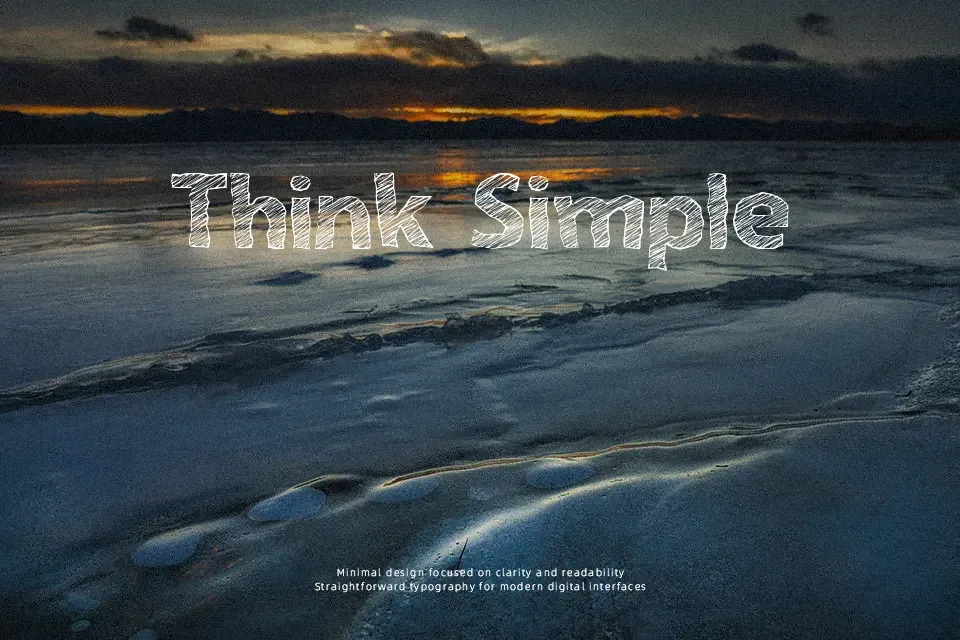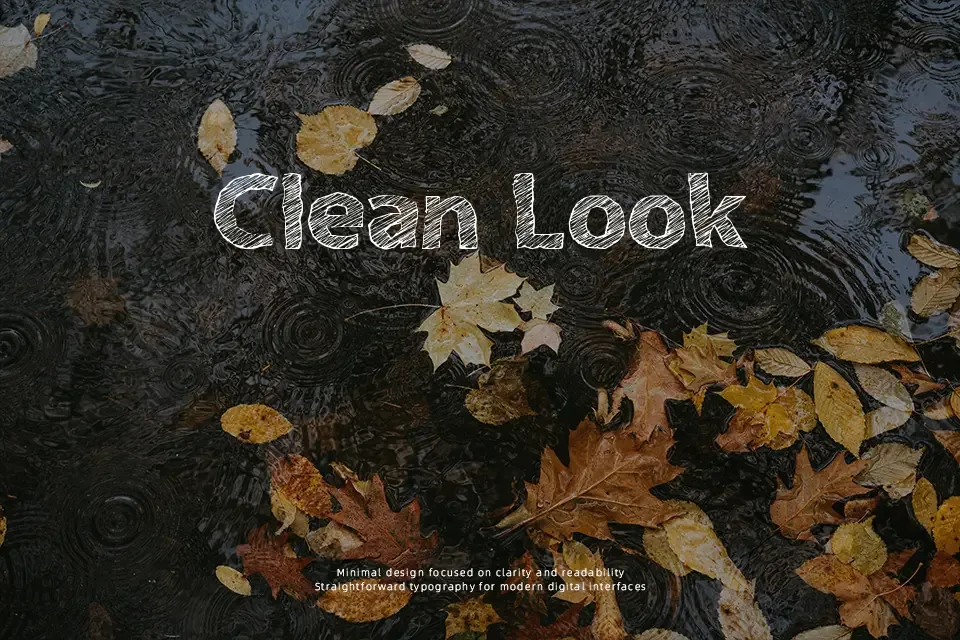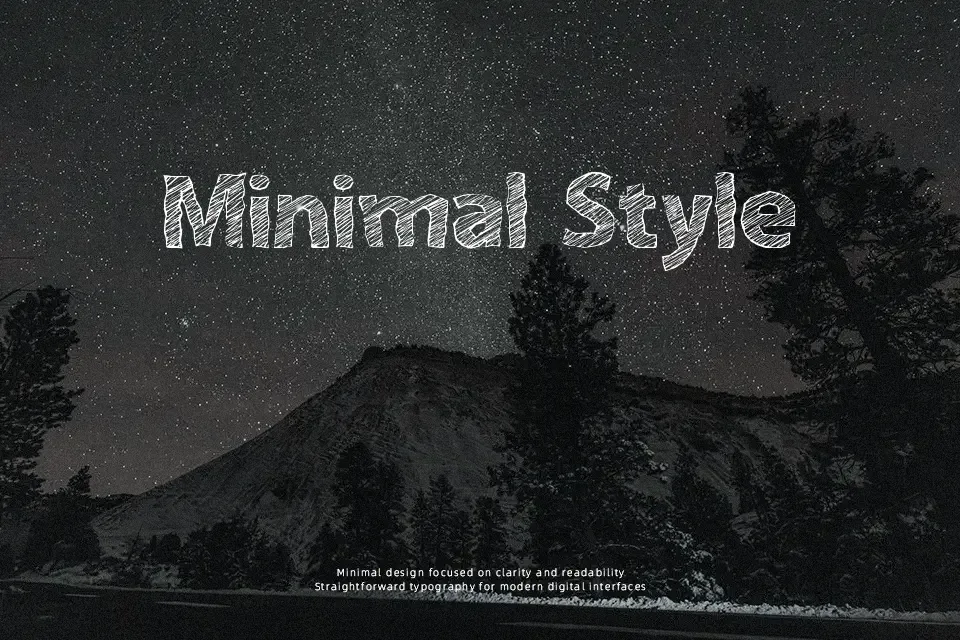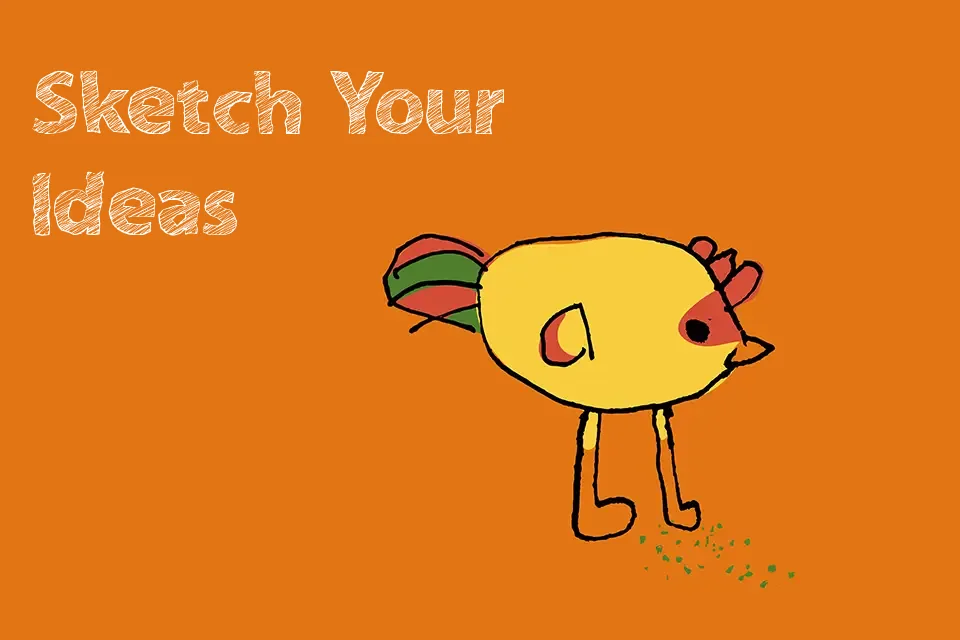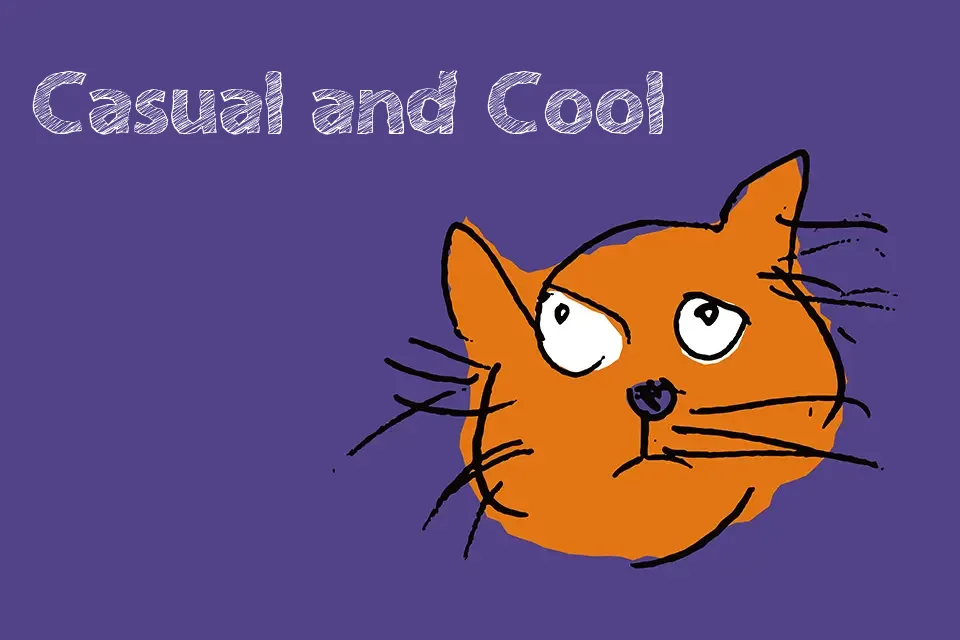
A bit Sketchy Font
Designed by Jeremy Dixon
The letterforms in A bit Sketchy carry deliberately irregular edges and slightly wobbly stroke paths, giving each character the look of something quickly sketched in pencil or ballpoint pen. There’s a casual looseness to the spacing that reinforces its rough, unrefined character — this isn’t trying to look clean, and that’s exactly the point. It fits naturally in contexts where personality trumps polish: zine covers, handmade-style packaging, children’s event posters, or DIY project branding. Where it falls short is readability at small sizes — the textured edges blur together and lose legibility fast. Anyone needing consistent, professional output at body-text scale should look elsewhere. At display sizes, though, the imperfections become an asset rather than a liability.
– Indie or handmade brand packaging headers
– Zine and DIY editorial title treatments
– Kids’ party or casual event promotional graphics
– Social media quote cards with a playful, personal tone
– Body text or extended reading passages
– Corporate or formal brand identity work
– Small-size print applications where stroke clarity is needed
– High-precision editorial layouts requiring optical consistency
Perfect for editorial, kids, and packaging, with a artistic and decorative style.